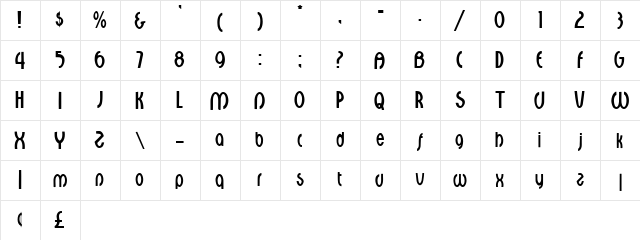
Ouzel Normal
Design Context for Ouzel Typeface
Ouzel offers clean, dependable letterforms without strong stylistic allegiance, making it a practical choice for designers who need flexibility.